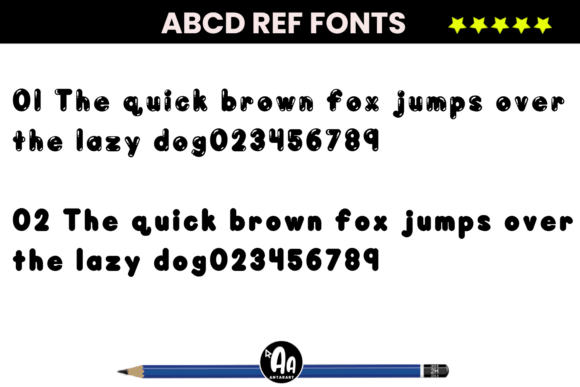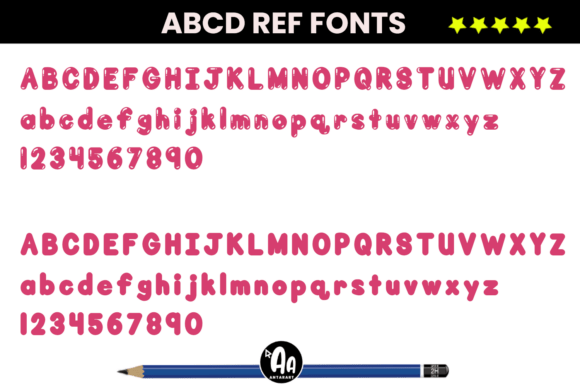
Pop of Joy: Discover the Magic of ABCD Ref Balloons Font
Have you ever stared at a bunch of colorful balloons and felt an instant rush of creativity? That’s exactly what happened when I first laid eyes on the Abcd Ref Balloons Font. Its playful energy is infectious, and I knew I had to dive deeper to learn more.
This delightful typeface brings a sense of wonder and excitement to any design. Inspired by real balloon shapes, the Abcd Ref Balloons Font features rounded, bubbly letters with reflective highlights that give off a joyful, inflated look. Whether you’re designing birthday invitations, kids’ projects, or party posters, this font is sure to bring a smile to your audience’s faces. Its versatility and fun personality make it a valuable addition to any designer’s toolkit.
Abcd Ref Balloons Font Key Features
- Font Family: Abcd Ref Balloons
- Unique Characteristics: The font features colorful, rounded balloons with cute and playful designs, perfect for children’s educational materials, party invitations, and other fun applications
Designer Review: Abcd Ref Balloons Font
Overall, I was excited to dive into the Abcd Ref Balloons Font. ✨ Its playful and whimsical design is perfect for creating a fun and engaging atmosphere in various design projects. I appreciate the attention to detail in the design, especially in the way the balloons are styled.
The font’s versatility is another aspect that I appreciate. ✨ It comes in a range of sizes and styles, making it easy to use in different contexts. Whether you’re designing a party invitation or a children’s book, this font is sure to bring a smile to the reader’s face.
However, there are a few limitations that I noticed. ⚠️ The font’s legibility can be a concern at smaller sizes, which may make it difficult to read in certain contexts. Additionally, the font’s complexity can make it challenging to pair with other fonts, which may limit its overall usability.
Here are some specific pros and cons:
- ✨ Playful and whimsical design
- ✨ Versatile and easy to use in different contexts
- ⚠️ Limited legibility at smaller sizes
- ⚠️ Complex design can make pairing with other fonts challenging
Overall, I would recommend the Abcd Ref Balloons Font for projects where a playful and engaging atmosphere is desired. While it has some limitations, its unique design and versatility make it a valuable addition to any designer’s toolkit.
Tips for Getting the Most Out of Abcd Ref Balloons Font
To get the most out of Abcd Ref Balloons Font, try the following:
- Use it for whimsical and playful designs
- Pair it with bold and bright colors
- Experiment
Alternatives to Abcd Ref Balloons Font
Great Vibes is a beautiful, handwritten font that is perfect for adding a touch of elegance to your designs. It is ideal for use in wedding invitations, greeting cards, and other creative projects. Great Vibes has a more refined and sophisticated look compared to Abcd Ref Balloons Font, which is more playful and childlike.
Alex Brush is a elegant, handwritten font that is perfect for use in designs that require a touch of sophistication and elegance. It is ideal for use in wedding invitations, business cards, and other professional projects. Alex Brush has a more refined and polished look compared to Abcd Ref Balloons Font, which is more playful and whimsical.
Carolyna Pro is a modern, elegant font that is perfect for use in designs that require a touch of sophistication and glamour. It is ideal for use in fashion magazines, advertising campaigns, and other creative projects. Carolyna Pro has a more refined and polished look compared to Abcd Ref Balloons Font, which is more playful and fun.